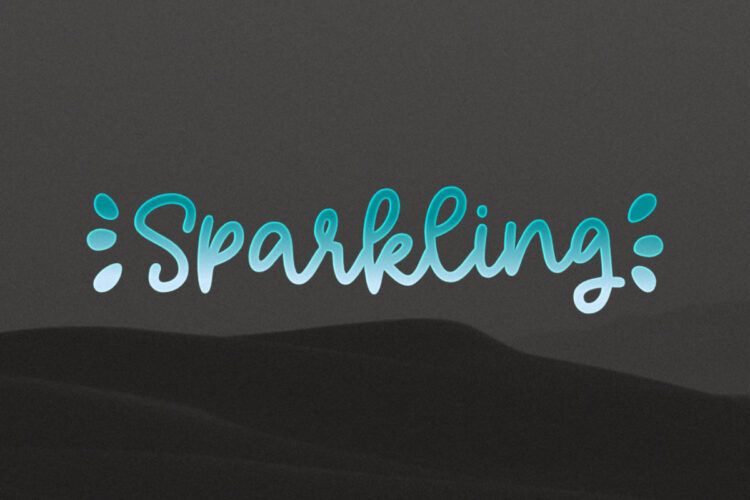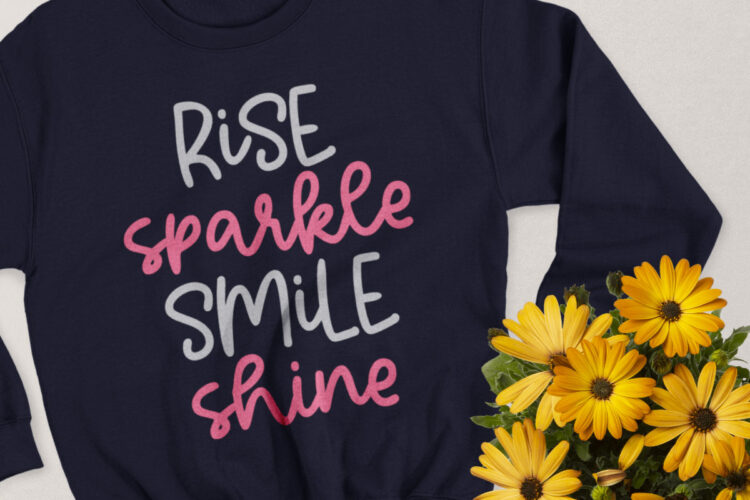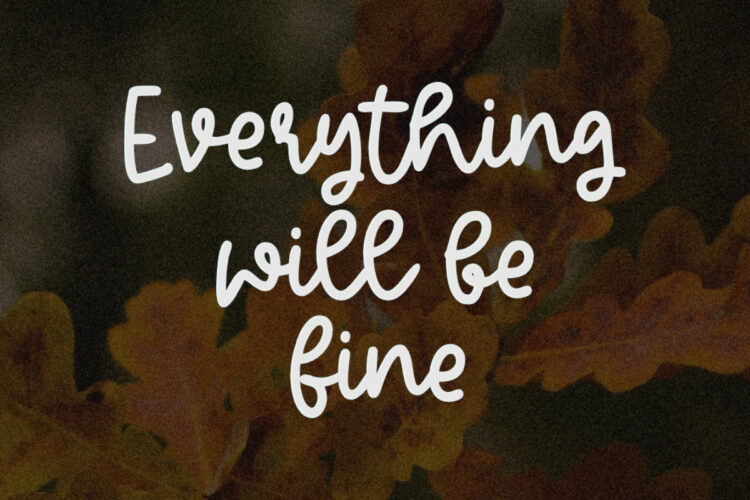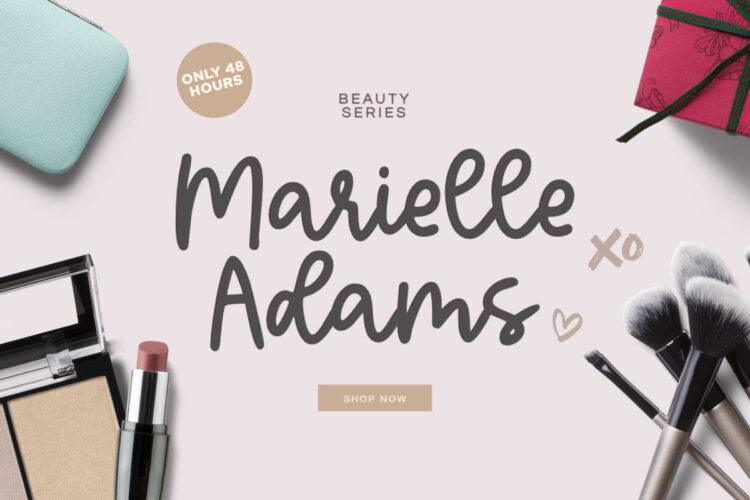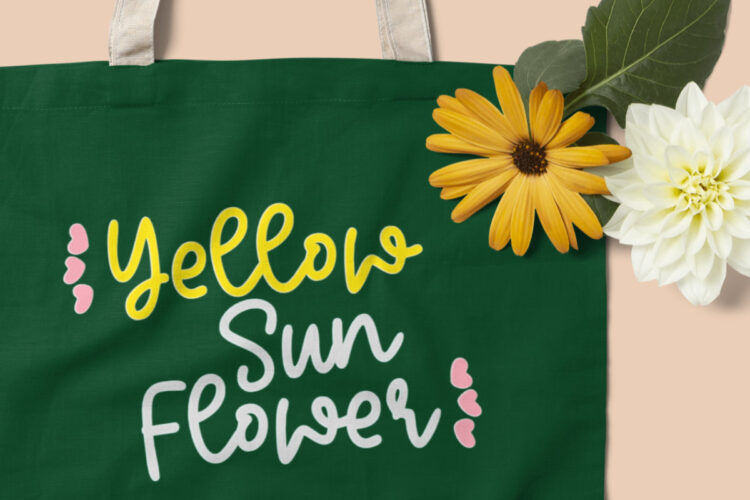
Sparkling is a relaxed, fashionable, and cute monoline script font. It looks great on a variety of designs, such as print design, stickers, wedding invitation, apparels, logos, and so on